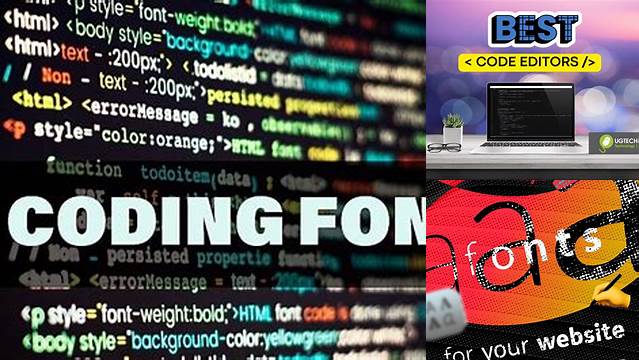
Best Text Editor Fonts For Coders
Are you a coder, developer, or anyone who spends a significant amount of time staring at a text editor? Then, choosing the right font is crucial for your productivity, eye health, and overall coding enjoyment. You might not realize it, but the font you use can drastically impact your ability to read code quickly, reduce eye strain, and even influence your coding style. In this article, we'll dive deep into the world of fonts, exploring the best fonts for text editors and highlighting why they matter. We'll break down the key features to look for, recommend some top choices, and offer tips on how to customize your editor for an optimal coding experience.
Why Font Matters: The Impact on Your Coding Life
Let's be honest, guys, we spend hours, if not days, in front of our text editors. A poorly chosen font can lead to a world of headaches, literally. Think of it like this: You wouldn't use a dull knife to chop vegetables, right? Similarly, a bad font can make your code harder to read, leading to errors, slower debugging, and increased eye strain. The right font, on the other hand, can be your coding superpower.
Clarity and Readability are King: The primary goal of any coding font is to make your code as easy to read as possible. This means clear letter shapes, distinct characters (so you don't confuse 'l' with '1' or '0' with 'O'), and a comfortable viewing experience, even after hours of coding. When the font's clear, you can spot errors faster, understand the logic of your code more quickly, and ultimately, write better code.
Eye Strain Reduction: Another massive benefit of using a good font is that it significantly reduces eye strain. Coding can be tiring, and eye strain can make it even worse. Fonts designed for coding often have features like wider letter spacing and heavier weights, which make the characters more distinct and easier to see, reducing the effort your eyes have to put in. This means you can code for longer periods without feeling fatigued, boosting your overall productivity.
Boost Your Productivity: When your code is easy to read and doesn't strain your eyes, you're simply more productive. You can spot errors faster, navigate your code more efficiently, and stay focused on the task at hand. Choosing the right font is like giving yourself a little productivity boost with every line of code you write.
Coding Style and Preference: Lastly, font choice is a matter of personal preference. Some people like a monospaced font with a clean, minimalist design, while others prefer a font that adds a bit of flair. The best font for you is the one that feels most comfortable and helps you write code efficiently. You might want to experiment with different fonts to see which one you like best.
Key Features to Look for in a Text Editor Font
So, what should you look for when choosing a font for your text editor? Here are some key features to keep in mind:
Monospaced vs. Proportional: The most important distinction is between monospaced and proportional fonts. Monospaced fonts, where every character takes up the same amount of horizontal space, are generally preferred for coding. This alignment makes it easier to visually align code elements, such as comments, code blocks, and operators. Proportional fonts, where characters have varying widths, can be harder to read for code because the indentation and alignment are not as clean.
Clear Distinctions Between Characters: A great coding font must clearly differentiate between similar-looking characters like 'l' (lowercase L), '1' (one), '0' (zero), and 'O' (uppercase O). This helps you avoid confusion and errors when reading your code. Look for fonts that have distinct shapes for these characters.
Legibility at Different Sizes: You'll want to choose a font that remains legible at various sizes. You might prefer a larger font for readability or a smaller one to fit more code on your screen. The font should maintain its clarity and distinctiveness even when scaled.
Good Spacing and Kerning: The spacing between characters (kerning) and words should be optimized for readability. Too tight, and the letters will blend together; too loose, and it'll be hard to follow lines of code. Also, good spacing makes it easier to visually separate code elements. Pay attention to how the font handles spacing and kerning.
Support for Special Characters: Make sure the font supports all the special characters and symbols you'll use in your code. This includes mathematical symbols, arrows, and any other characters specific to your programming language. The font should not display question marks or placeholder characters, which can be distracting and make the code hard to read.
Top Fonts for Text Editors: Our Recommendations
Alright, now for the fun part! Here are some of the best fonts for text editors, based on their clarity, readability, and popularity:
1. Fira Code: Fira Code is a very popular choice for coding, guys! It is a free, monospaced font with excellent legibility. The standout feature of Fira Code is its ligature support. Ligatures are special characters that combine two or more characters into a single glyph. For example, '!=' becomes '≠', and '->' becomes an arrow. This feature adds a visual polish to your code, making it more readable and aesthetically pleasing. Fira Code is especially great for its clear differentiation of similar characters and its overall clean design. It's available for macOS, Windows, and Linux.
Conclusion: Making Your Code Look Good
So, there you have it, guys! Choosing the right font for your text editor is an essential step towards a more enjoyable and efficient coding experience. By focusing on clarity, readability, and the features that are most important to you, you can transform your text editor into a powerhouse of productivity. Whether you choose Fira Code, JetBrains Mono, Cascadia Code, Source Code Pro, or Menlo, the goal is the same: to make your code easy to read, reduce eye strain, and keep you coding happily for hours on end. So, take the time to experiment with different fonts, customize your editor settings, and find the perfect combination that works for you. Happy coding!